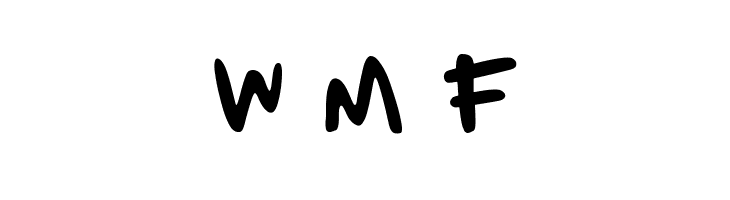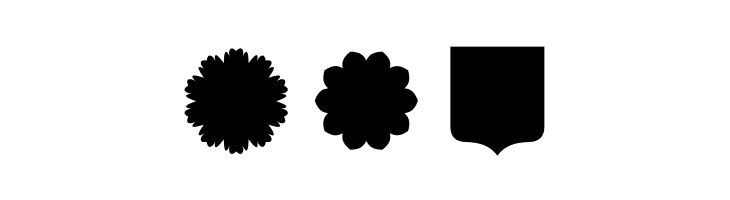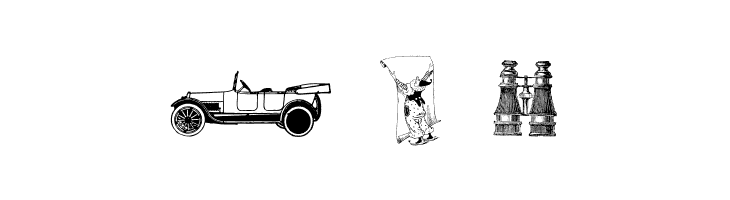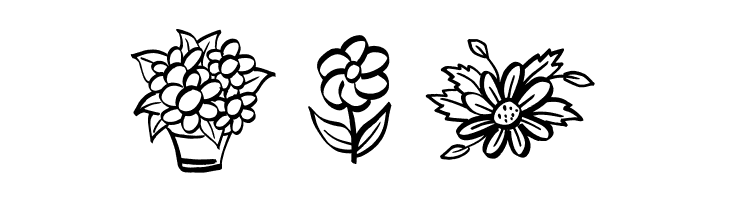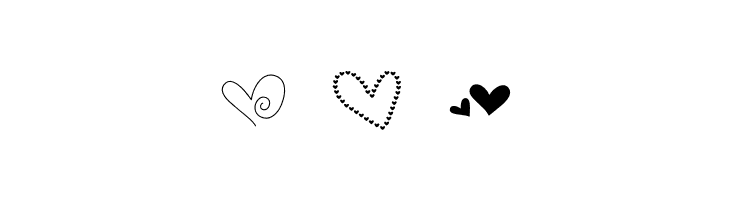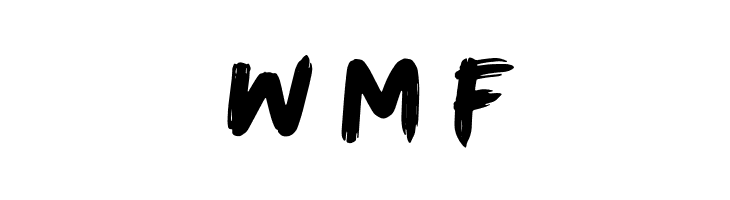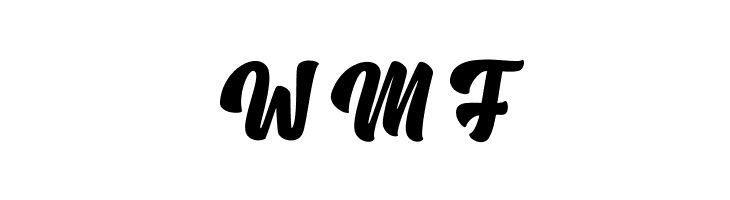
A bold, decorative font with stars and stripes, evoking American patriotic themes.
A bold, rounded handwritten font with a playful and casual style.
A dingbat font featuring various solid shapes and symbols.
A modern, italic sans-serif font with clean lines and excellent legibility.
Vintage dingbat font with detailed illustrative icons.
Hand-drawn floral illustrations with a whimsical, decorative style.
A playful collection of heart-themed doodles with a whimsical, hand-drawn style.
A bold, brush-style font with dynamic, hand-painted strokes.
A bold, playful script font with smooth, connected letters and a lively character.